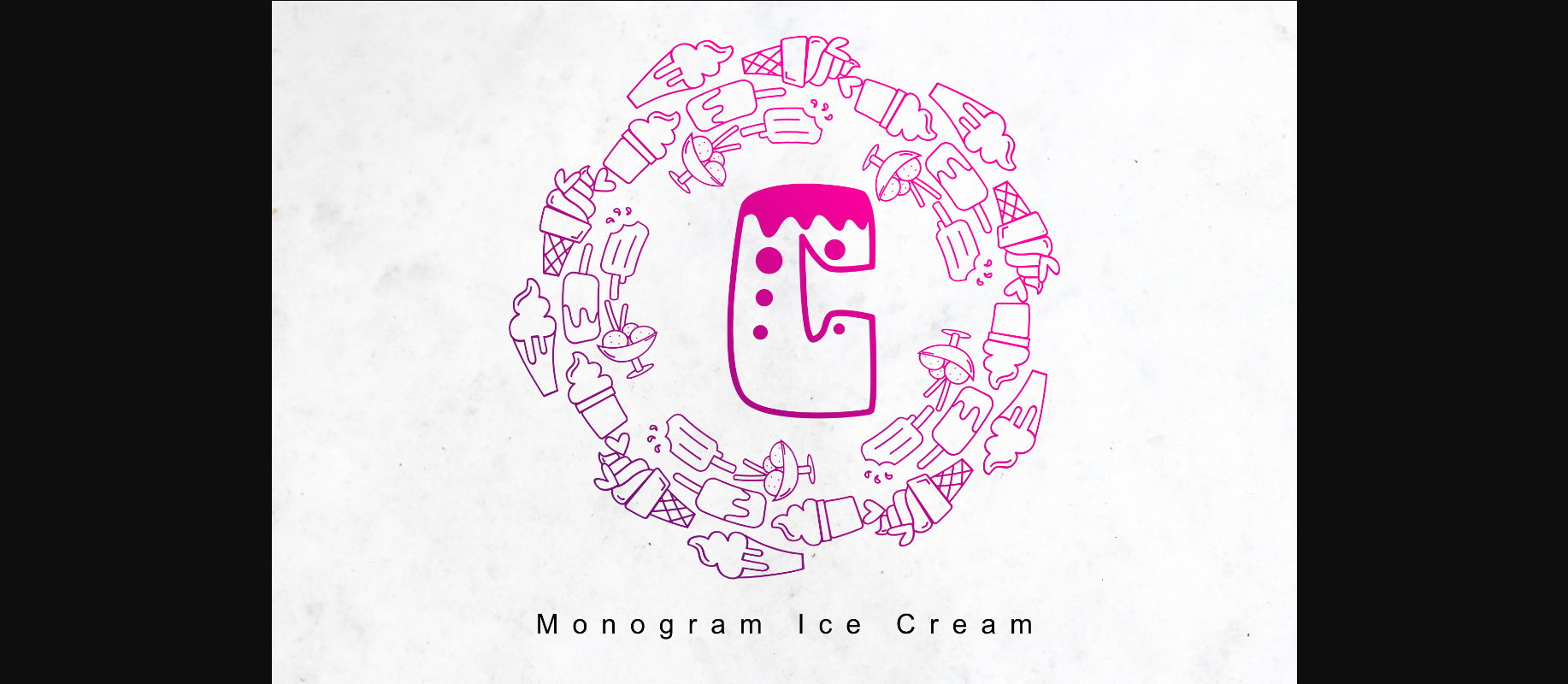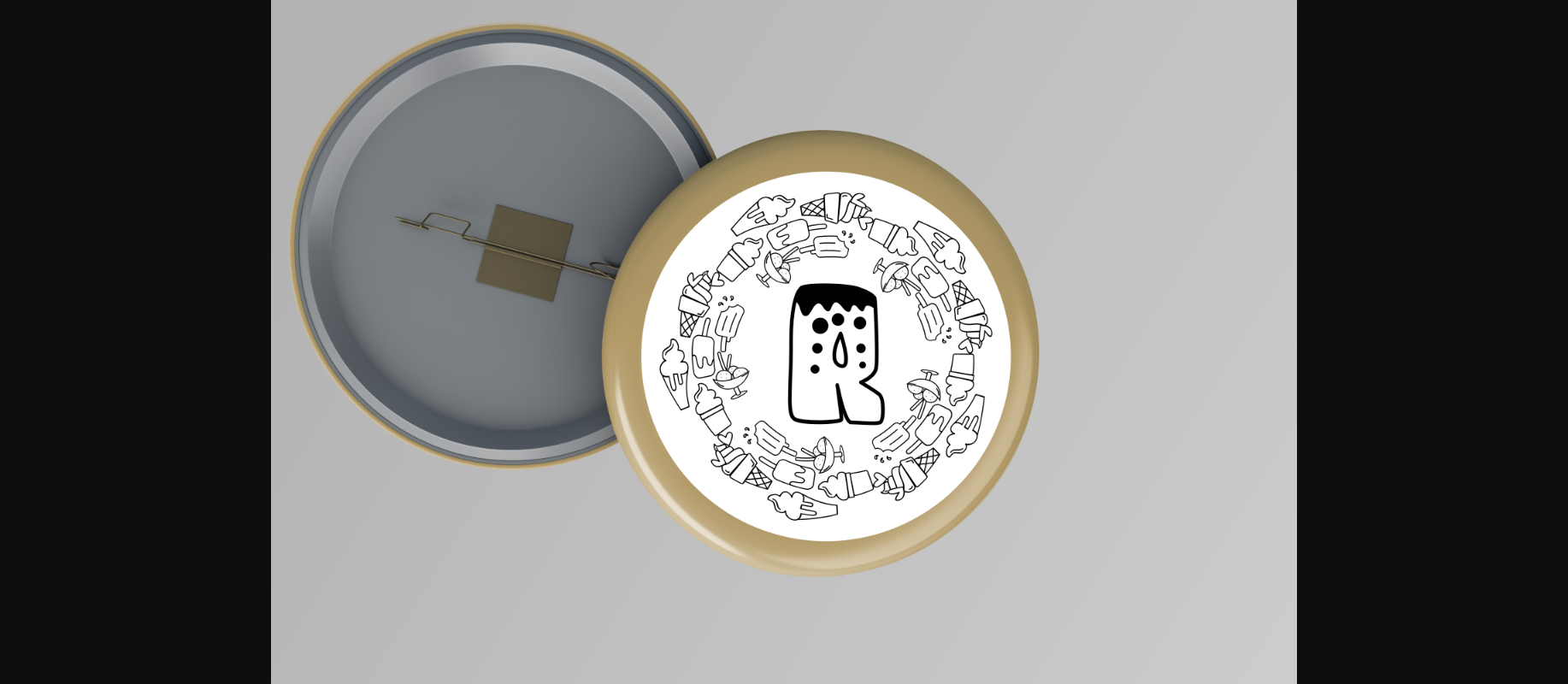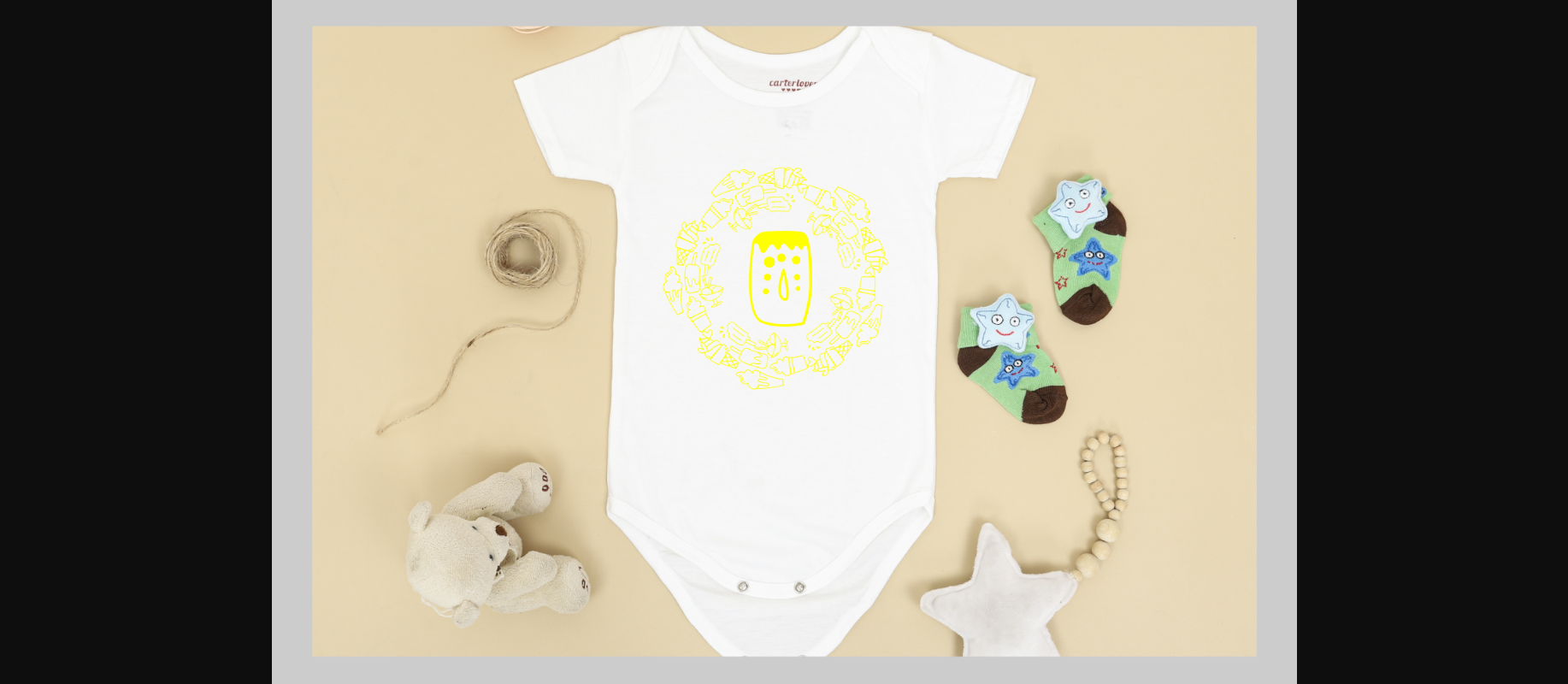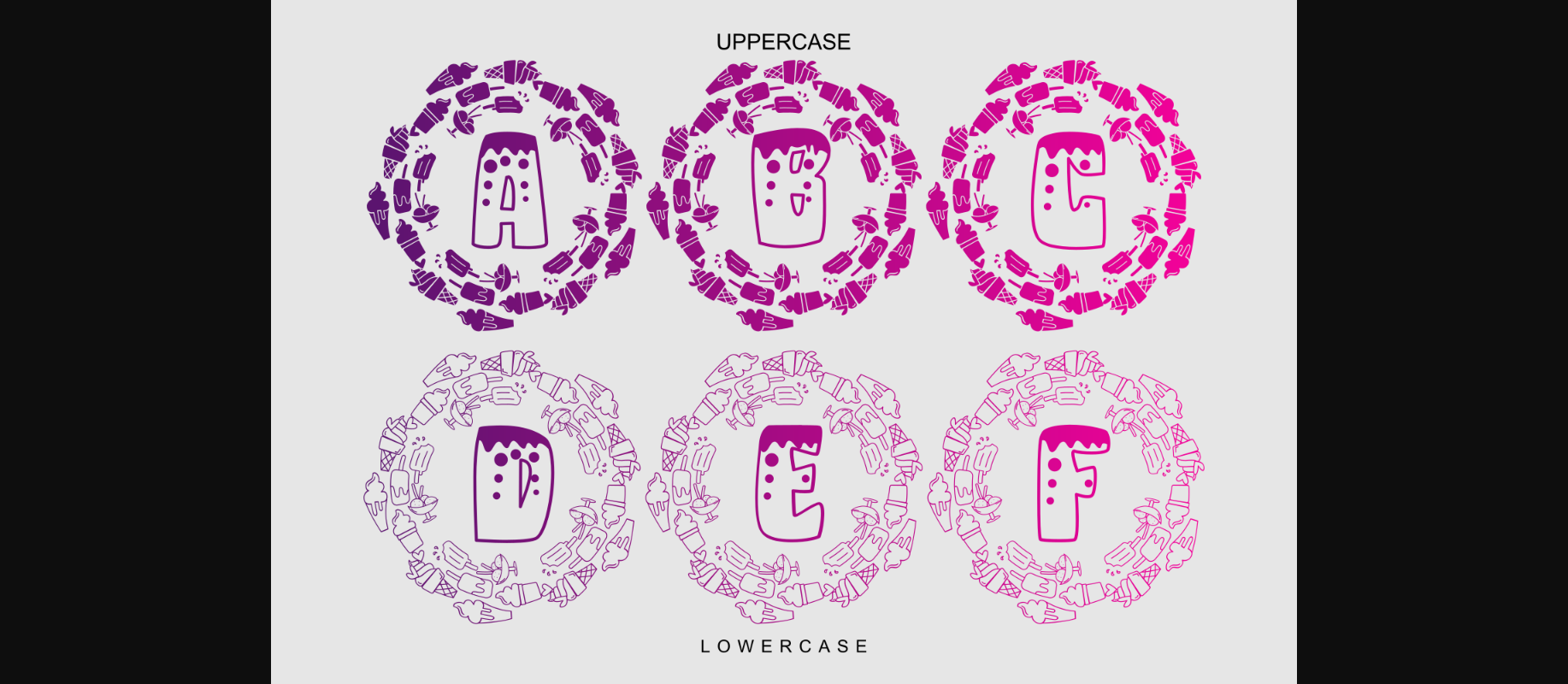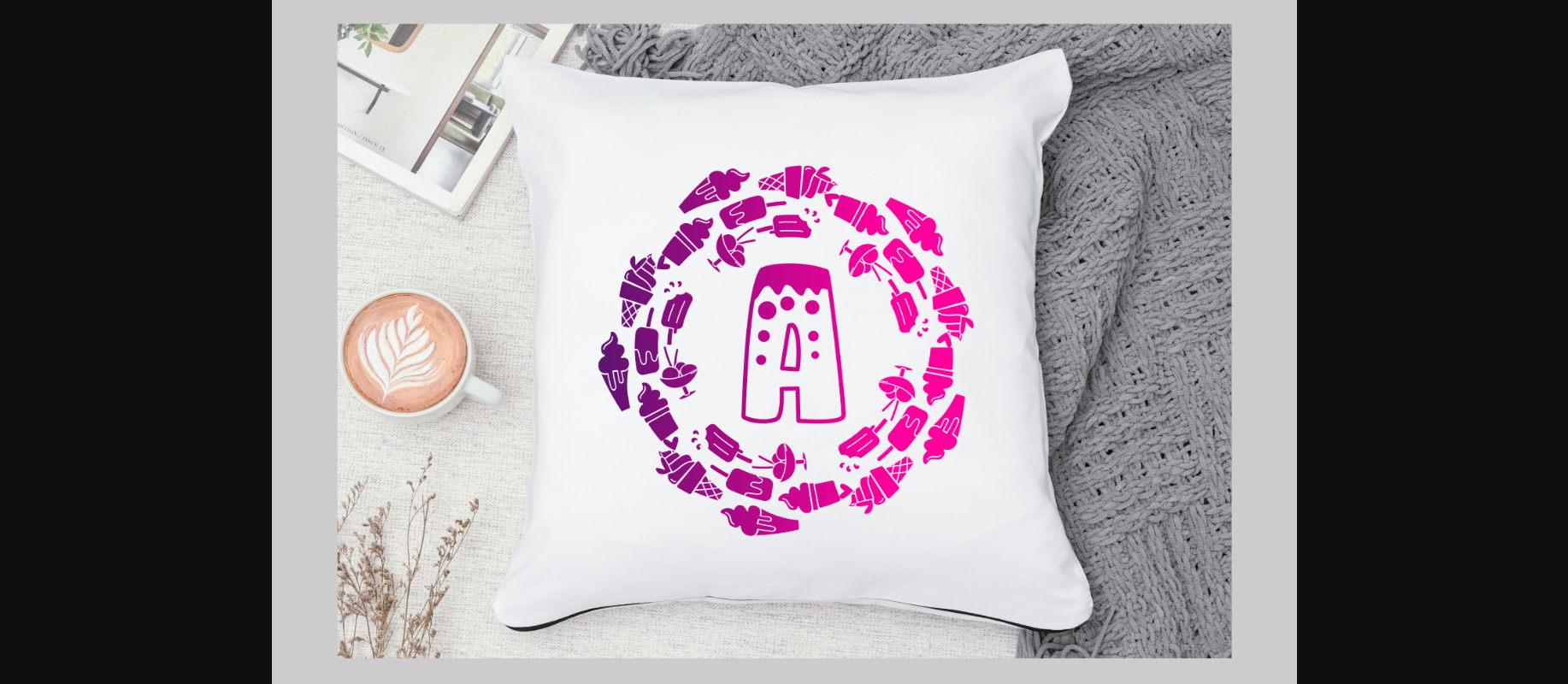
Monogram Ice Cream is a highly detailed and sweet decorative font. Add this quirky-looking font to each of your children projects or favorite design ideas, and you will be astounded by the outcome.